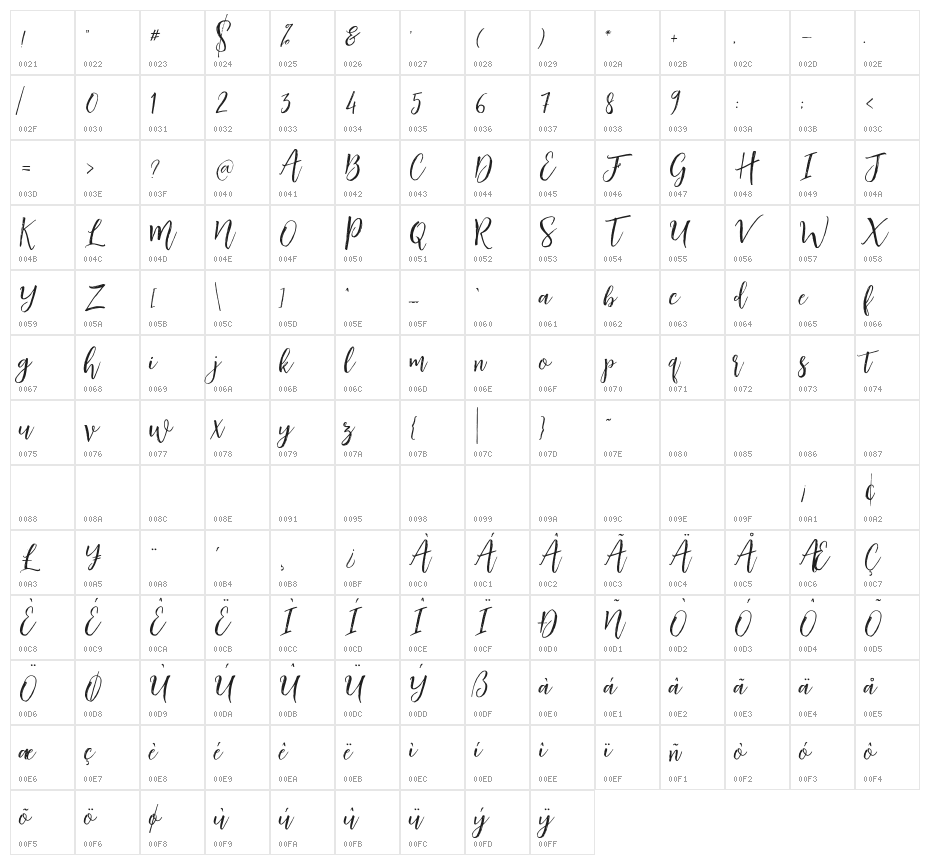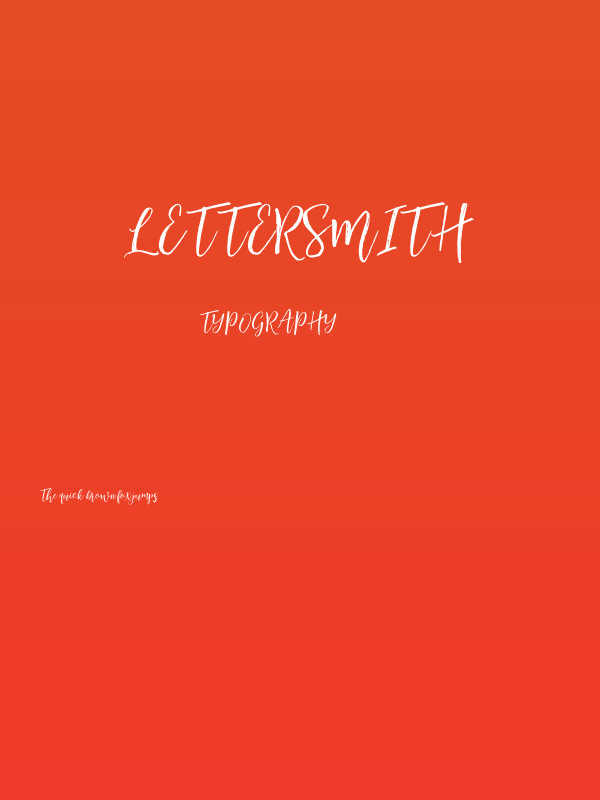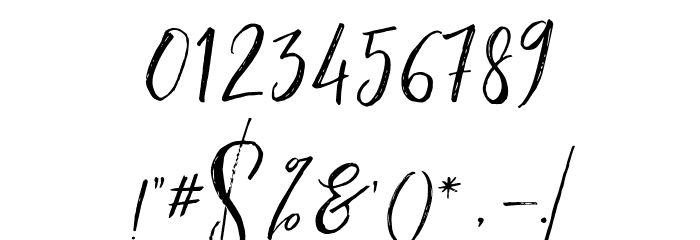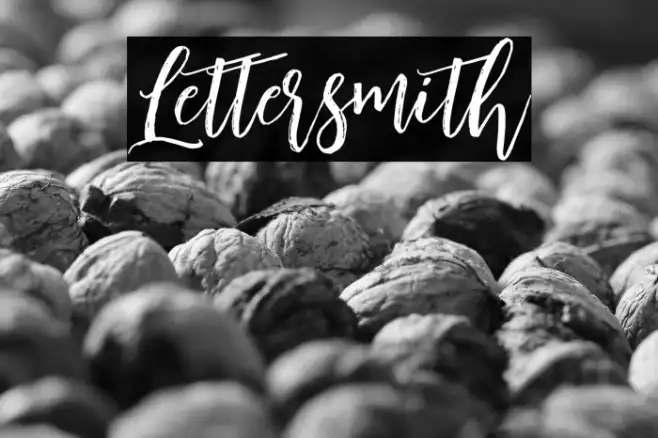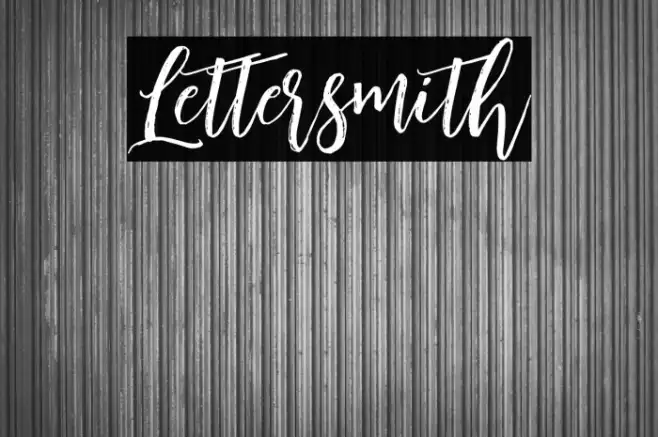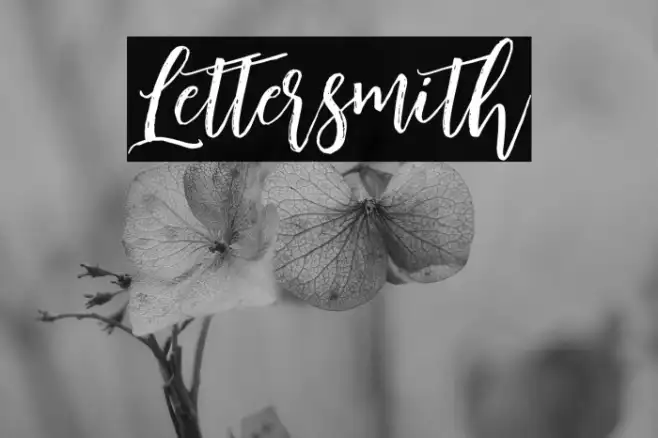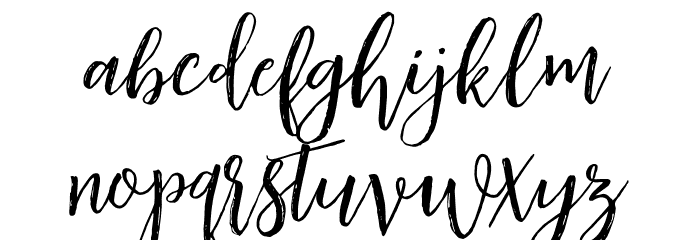
Lettersmith Font
Lettersmith Description
This font exudes a lively and artistic flair, characterized by its fluid, handwritten style. The strokes are dynamic and varied, with a natural flow that mimics the movement of a brush or pen. Each letter has a unique personality, with some characters featuring elongated tails and others with playful loops. The uppercase letters are bold and expressive, while the lowercase letters maintain a consistent rhythm. The numbers and special characters complement the overall style, adding to its versatility. This font is perfect for projects that require a personal touch, such as invitations, greeting cards, or creative branding.